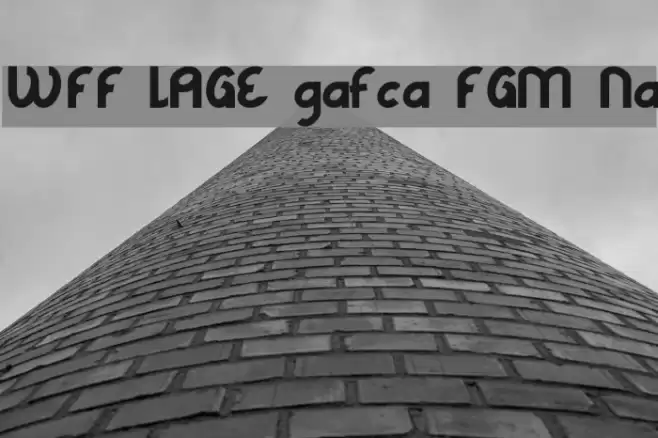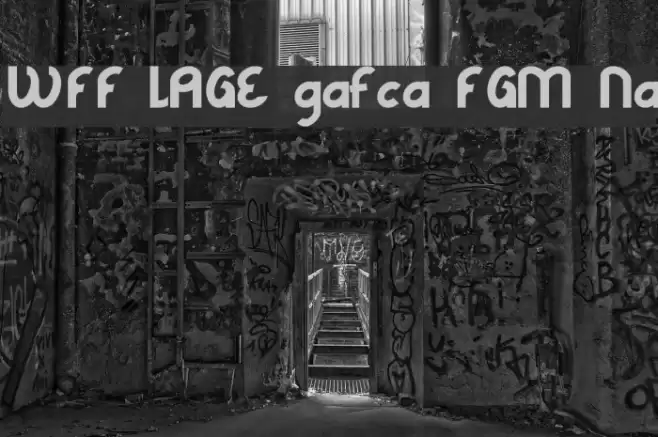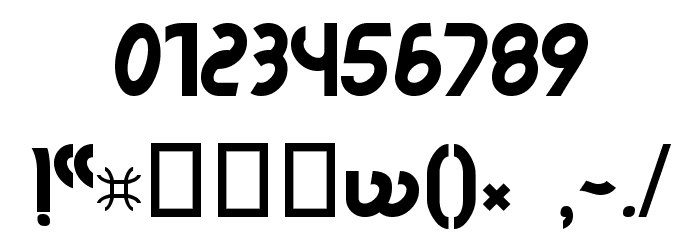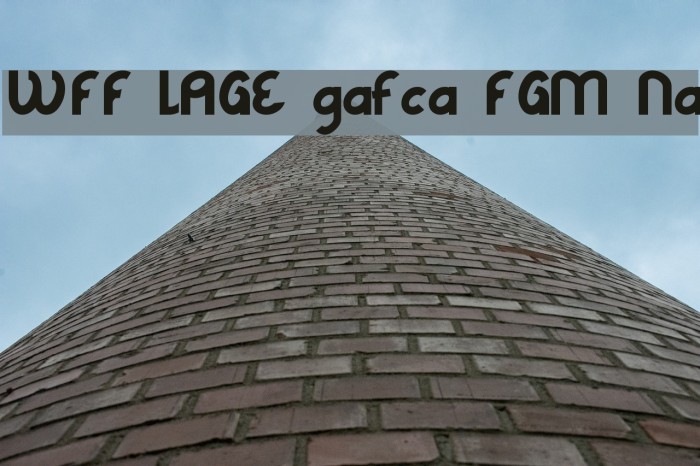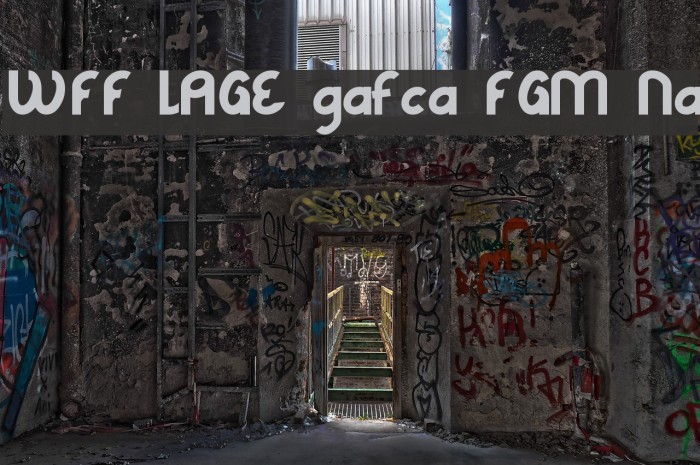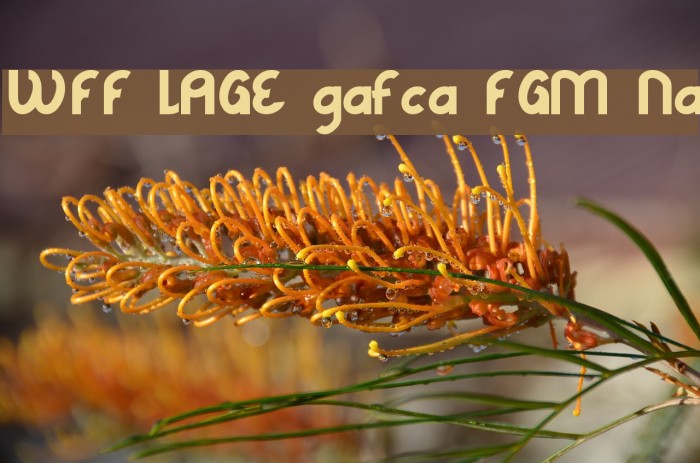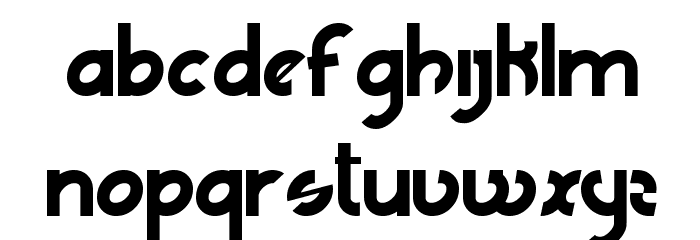
WFF LAGE grafica FGM Normal Font
WFF LAGE grafica FGM Normal Description
This font features a bold and playful design with a unique blend of geometric and rounded elements. The uppercase letters are characterized by their thick strokes and rounded terminals, giving them a friendly and approachable appearance. The lowercase letters maintain a similar style, with some characters featuring distinctive curves and angles that add to the font's quirky personality. The numerals are consistent with the overall style, offering a bold and easily readable form. Special characters are creatively designed, maintaining the font's cohesive look. This font's distinctive style makes it suitable for a variety of creative applications.
A bold, playful font with geometric and rounded elements, perfect for creative projects from Crazy fonts.
- Proposed Projects: Ideal for branding, posters, children's books, and playful design projects.
- Overall Style: Playful, Modern